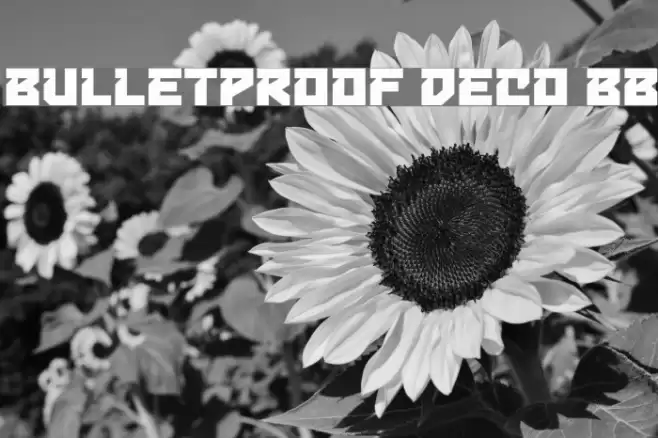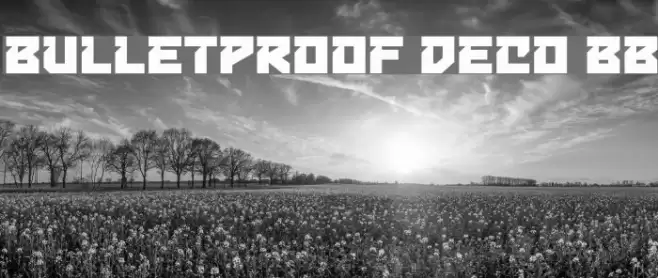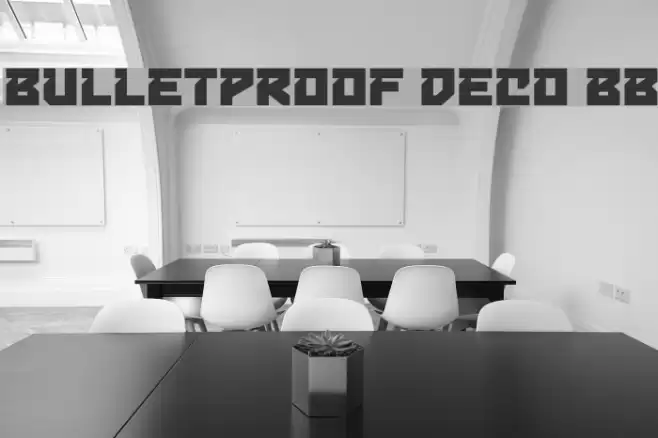
Bulletproof Deco BB Font
Bulletproof Deco BB Description
This font features a bold, geometric design with strong, angular lines and a distinct, blocky appearance. The characters are uniformly thick, giving it a robust and sturdy look. The uppercase and lowercase letters maintain a consistent style, with sharp edges and a modern, industrial feel. The numbers and special characters follow the same design principles, ensuring a cohesive look across all glyphs. This font's unique style makes it stand out, ideal for projects that require a strong visual impact.
A bold, geometric font with angular lines and a blocky, industrial appearance from Uncategorized fonts.
- Proposed Projects: Ideal for posters, logos, video game graphics, and branding materials that require a strong, impactful design.